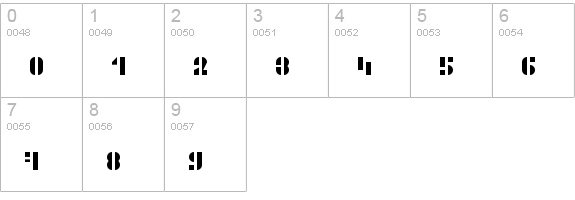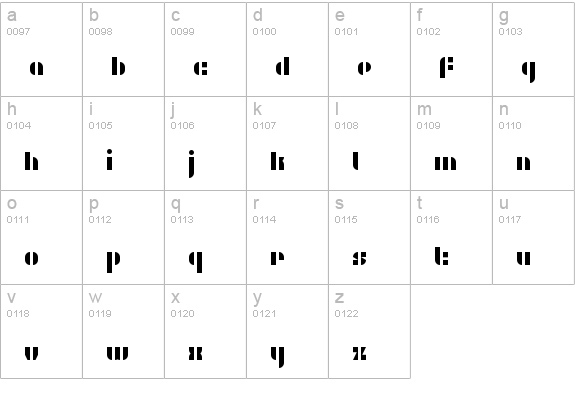
WLM Stencils Regular Font Details
WLM Stencils Regular is the standard, neutral variant in the WLM typeface family \xE2\x80\x94 well suited to general body text, paragraphs, and standard typographic work.
WLM Stencils Regular font is a versatile and eye-catching typeface that is perfect for a wide range of creative projects. Its bold and distinctive stencil design adds a touch of uniqueness to any design, making it ideal for logos, headlines, posters, and more. This font features clean lines and sharp edges, giving it a modern and edgy look. Its balanced letterforms and generous spacing make it highly legible, ensuring that your message will be conveyed clearly and effectively. What makes WLM Stencils Regular font even more appealing is that it is available for free download at FontsMarket.com. This means that you can easily access and use this font in your projects without any cost. Whether you are a professional designer or a hobbyist, this font provides you with a valuable asset that enhances the visual impact of your work. With its wide range of characters and extensive language support, WLM Stencils Regular font allows you to create designs in various languages and ensures that your message can reach a global audience. Its versatility and flexibility make it suitable for both digital and print applications, giving you endless possibilities to unleash your creativity. So why wait? Download WLM Stencils Regular font today from FontsMarket.com and elevate your designs to a whole new level. Whether you're creating a striking logo, a captivating poster, or a unique website, this font will add that extra touch of professionalism and creativity that sets your work apart. Make a statement with WLM Stencils Regular font and make your designs truly unforgettable.